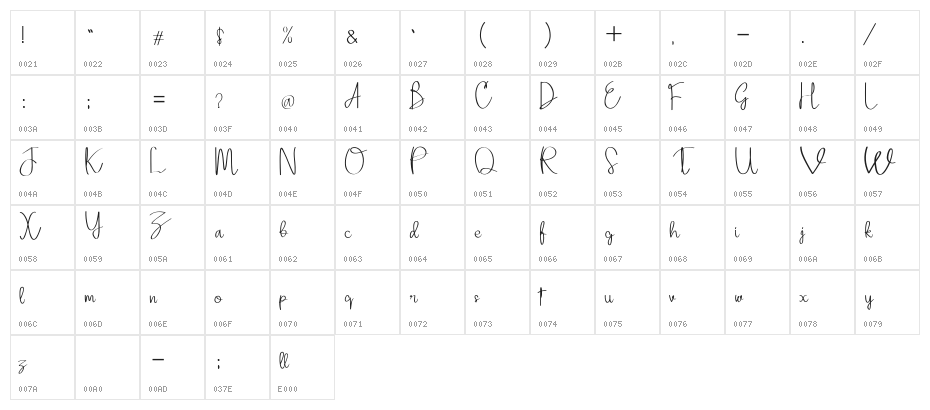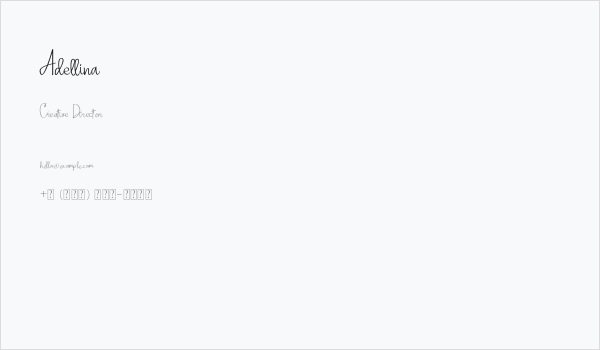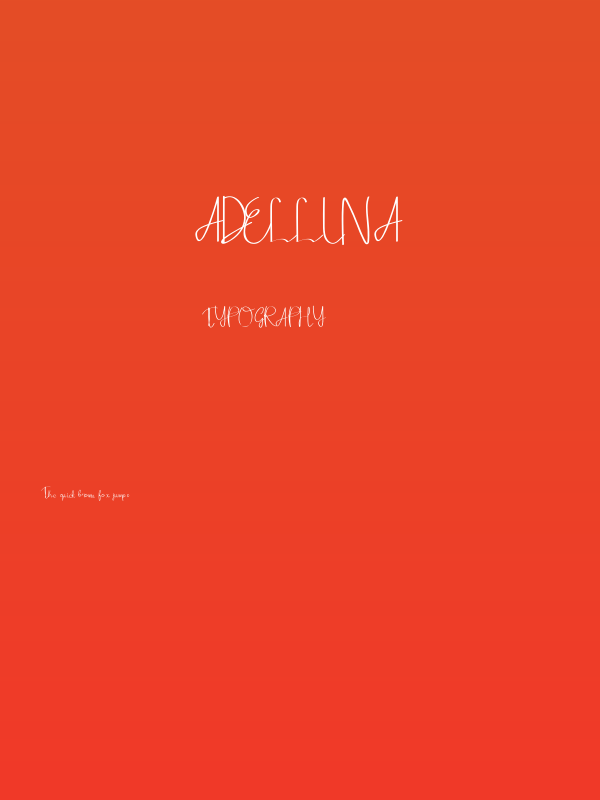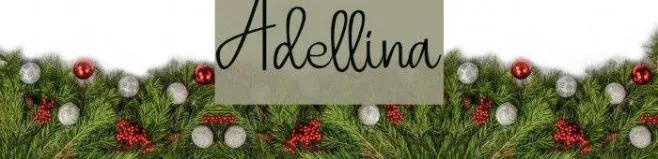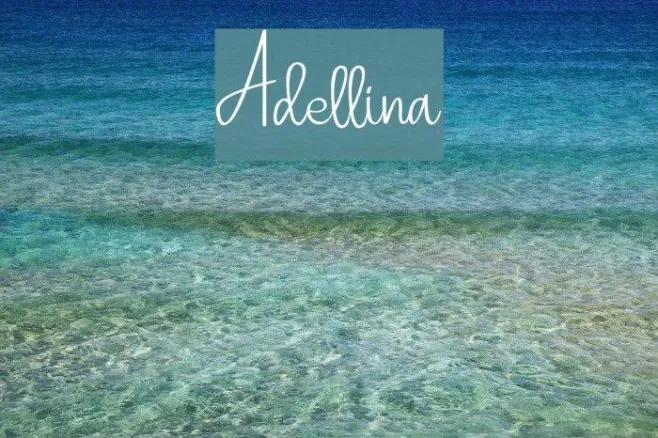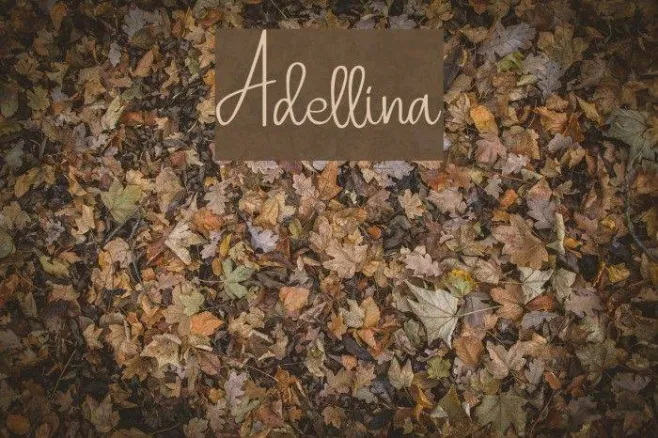
Adellina Font
Adellina Description
This font features a whimsical and elegant script style with a handwritten appearance. The uppercase letters are characterized by their tall, flowing lines and graceful curves, giving them a sophisticated yet playful look. The lowercase letters maintain a consistent style with smooth, connected strokes that enhance the font's fluidity. The numbers and special characters are designed to complement the overall aesthetic, ensuring a cohesive appearance across all text. This font's unique charm makes it suitable for creative and artistic projects, where a touch of elegance and personality is desired.
| Proposed Projects | Ideal for wedding invitations, greeting cards, branding, and artistic projects. |